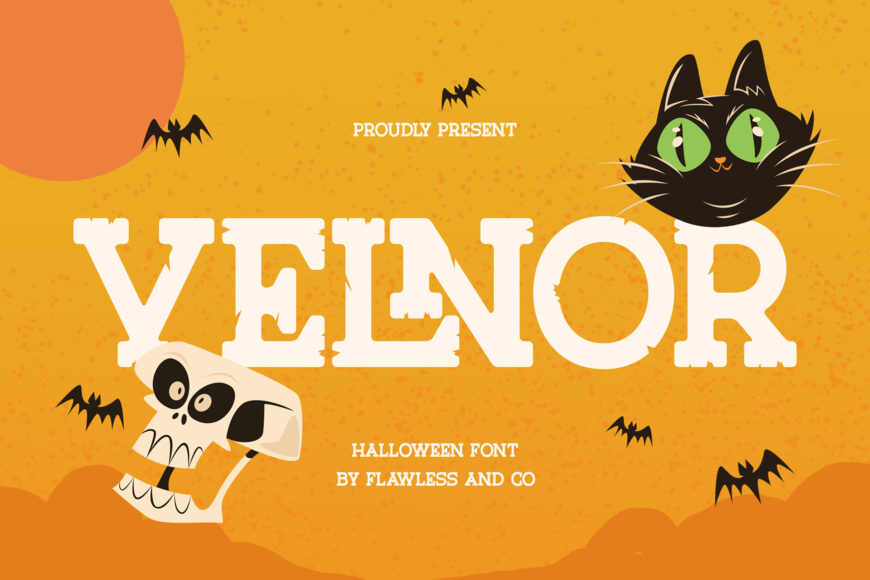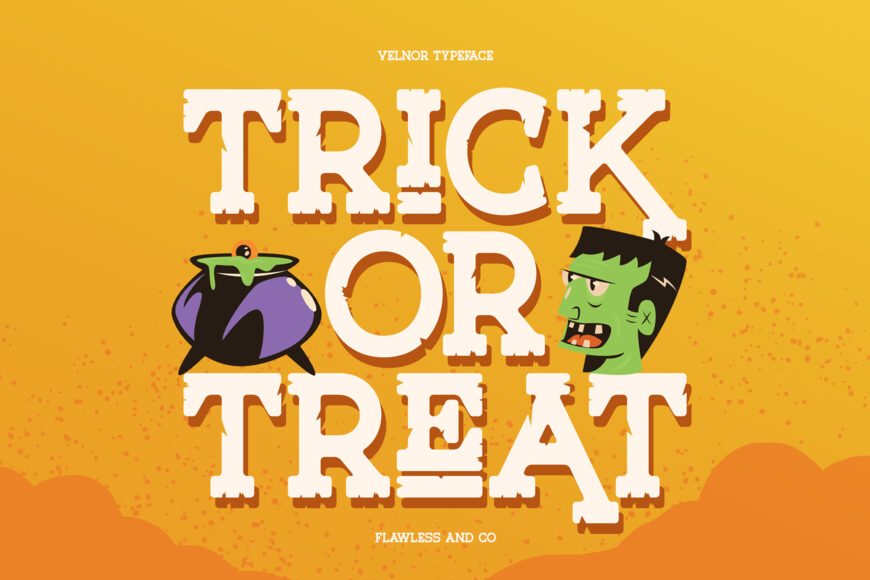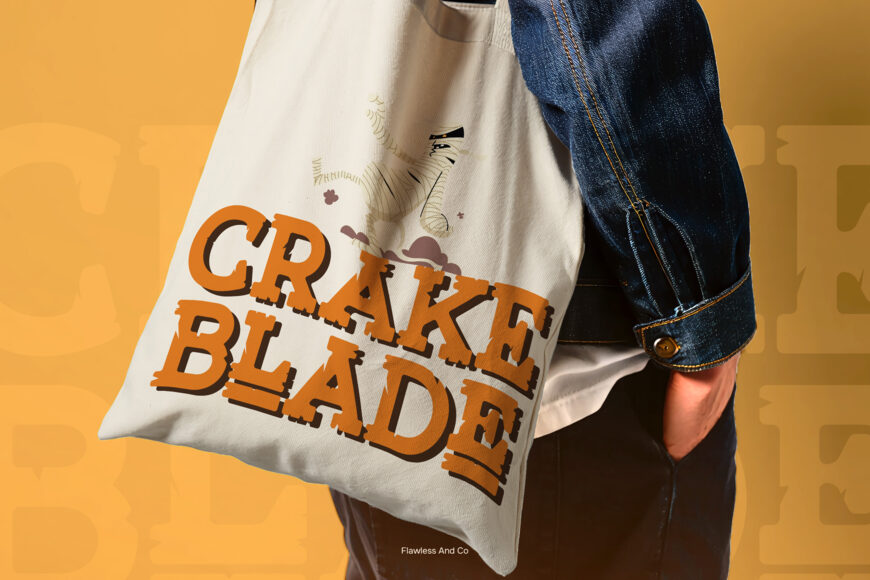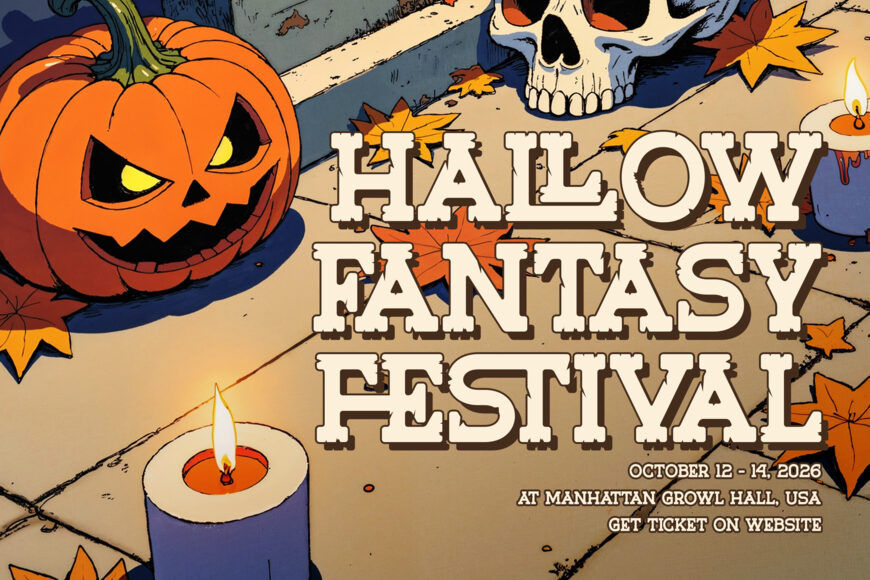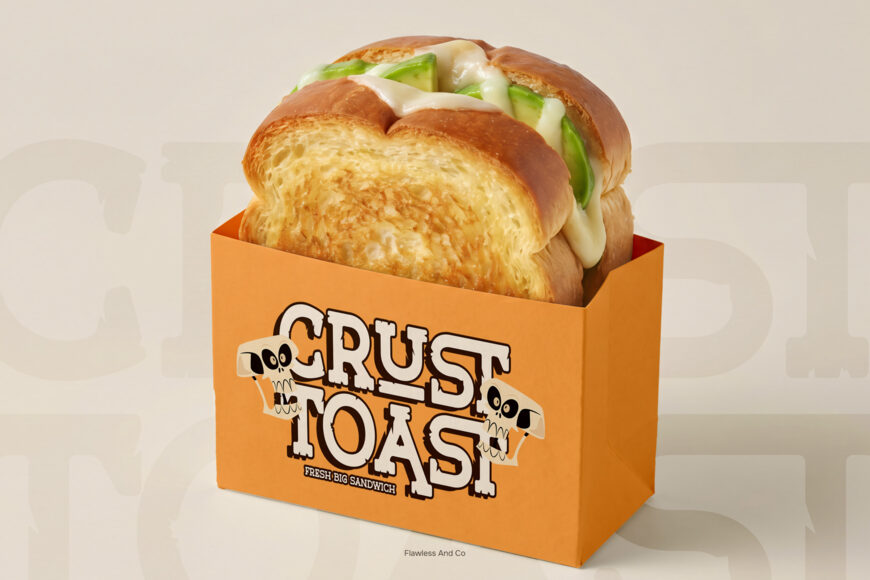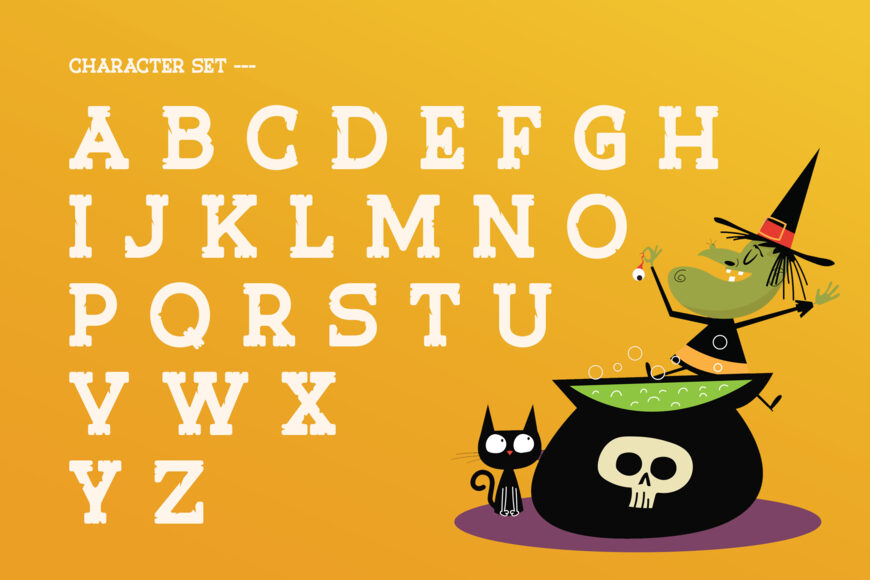
Velnor Font
Velnor is a Halloween display font featuring bold serif letterforms with distressed edges and irregular decorative details. Its chunky structure and rough accents create a spooky yet playful visual character that fits Halloween-themed typography.
The letterforms combine classic serif proportions with chipped, jagged, and uneven details, giving the typeface a vintage-inspired horror appearance. Its strong forms are designed for large display sizes, making Velnor suitable for titles, headlines, posters, and other prominent typographic compositions.